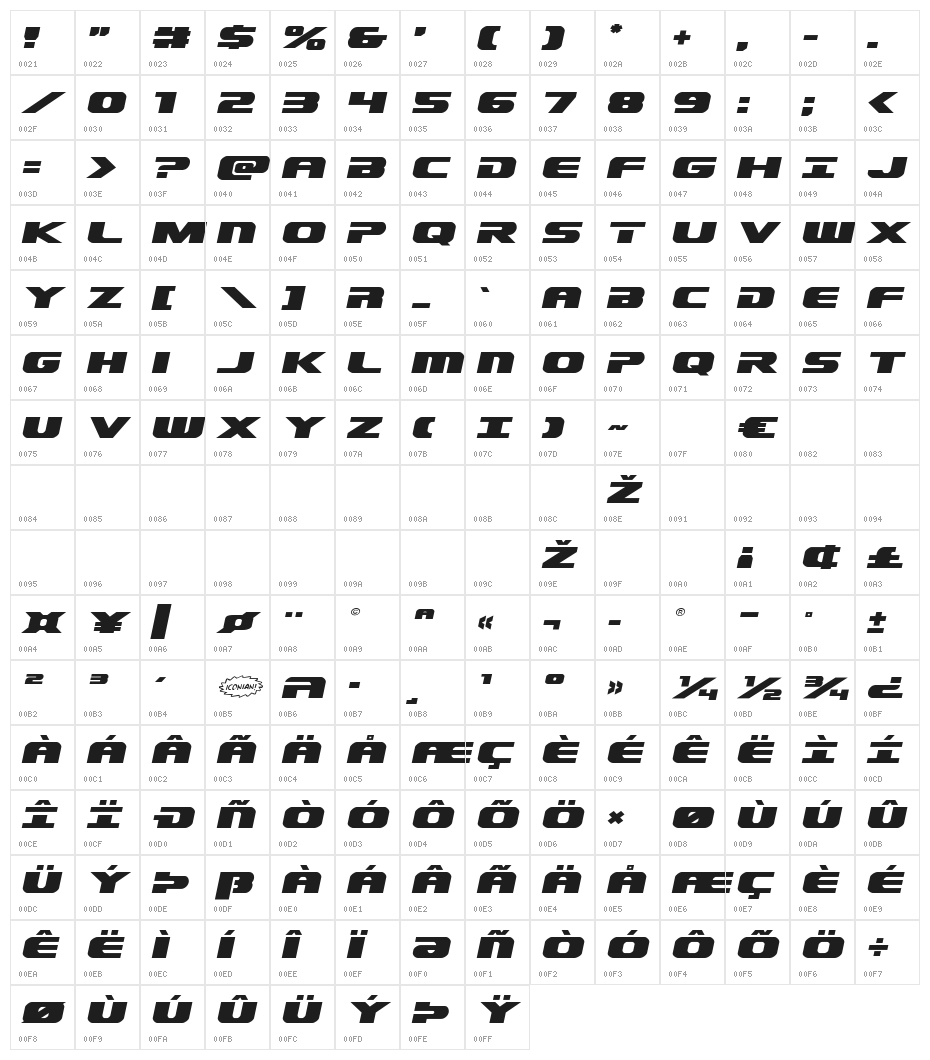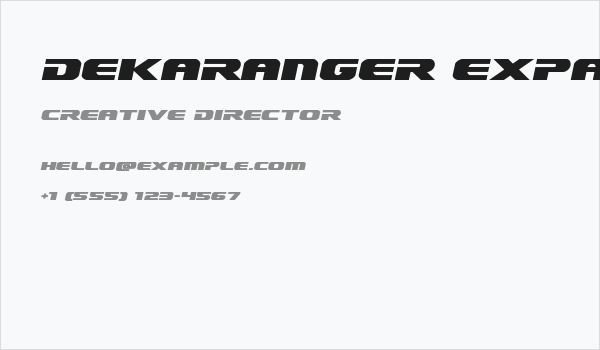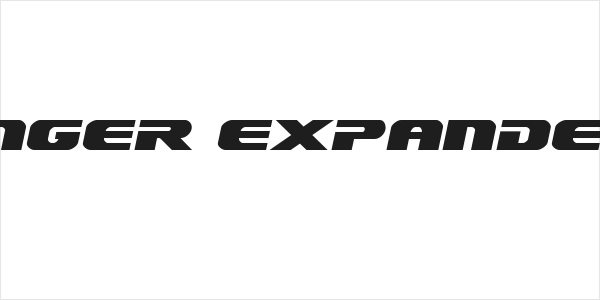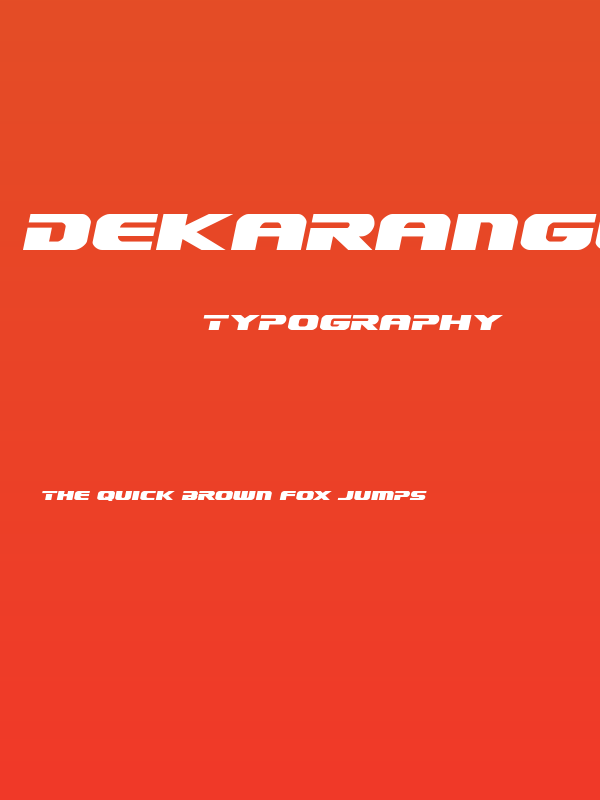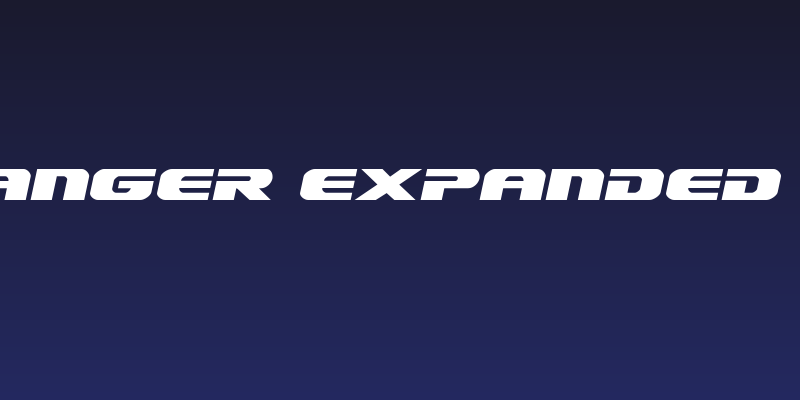
Dekaranger Expanded Italic Font
Dekaranger Expanded Italic Description
This font features a bold and dynamic style with an italic slant, giving it a sense of motion and energy. The characters are expanded, providing a wide stance that enhances readability while maintaining a strong visual impact. The design incorporates sharp angles and clean lines, contributing to a futuristic and modern aesthetic. Each letter is distinct, with consistent stroke thickness that adds to the boldness of the font. The numbers and special characters follow the same stylistic cues, ensuring uniformity across all elements.
| Proposed Projects | Ideal for projects requiring a futuristic and energetic look, such as tech branding, sports team logos, or dynamic advertising campaigns. |